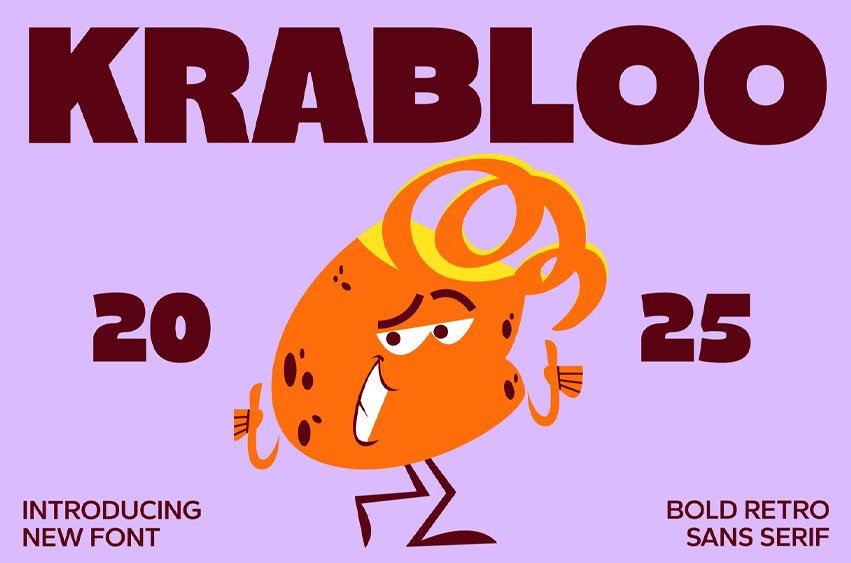
Krabloo Font Display Font is a bold retro sans serif typeface designed for attention-grabbing headlines, posters, branding, packaging, and social media.
With chunky letterforms and playful style, it adds a vintage yet modern charm to any creative project, making it perfect for designers who want standout, impactful typography.